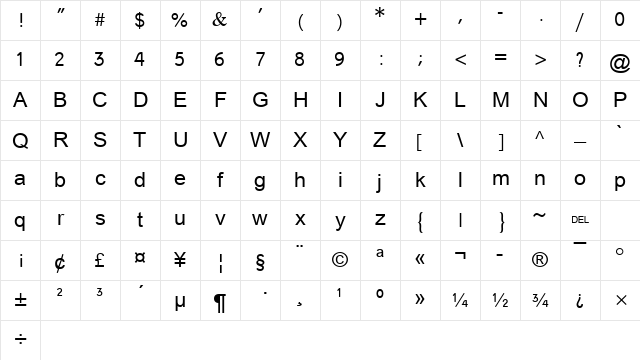
Miriam Regular
Miriam Family
Design Context for Miriam
Miriam is a composed and adaptable typeface that performs quietly and consistently across a wide range of design contexts.